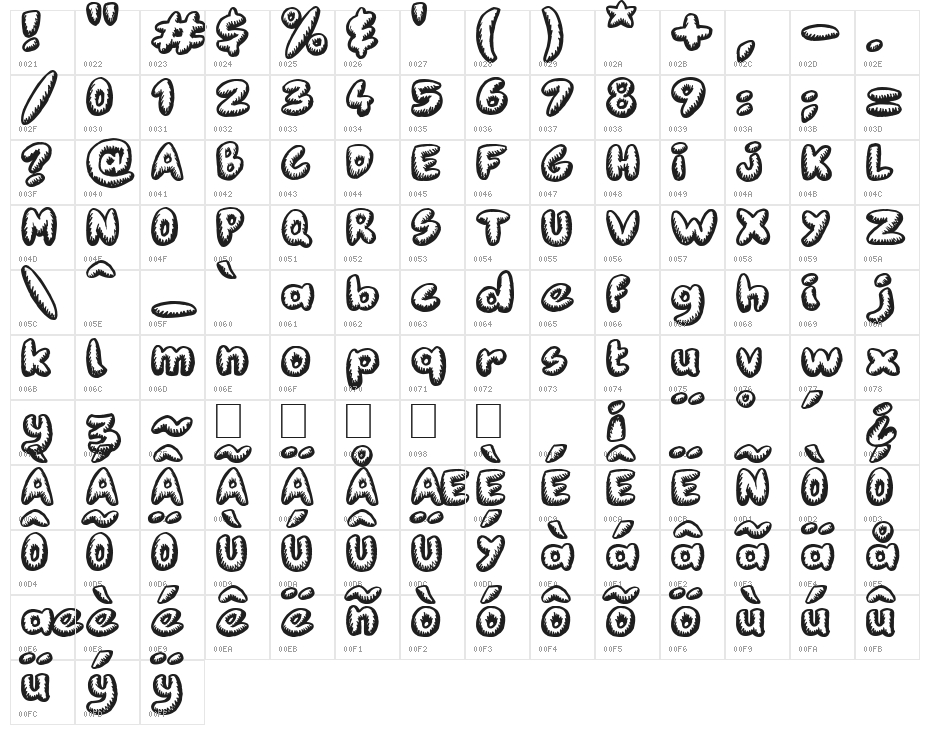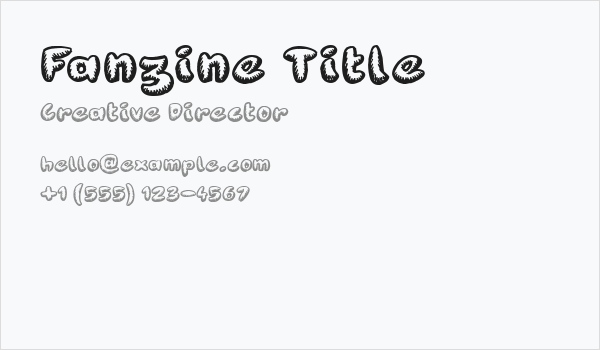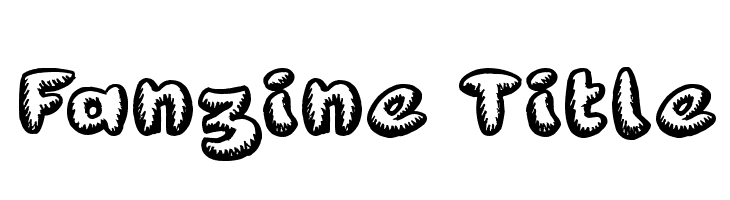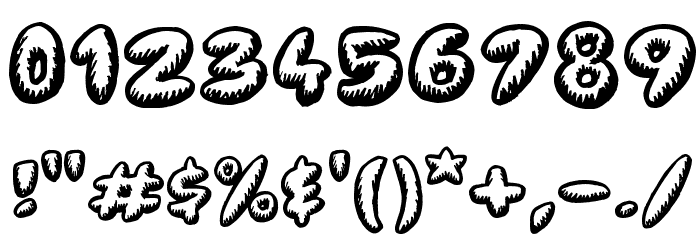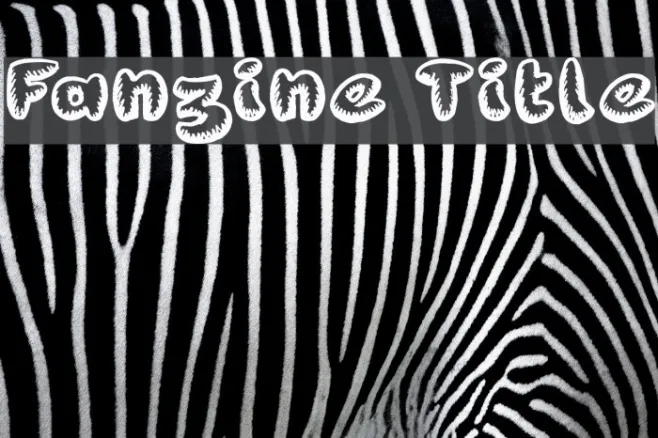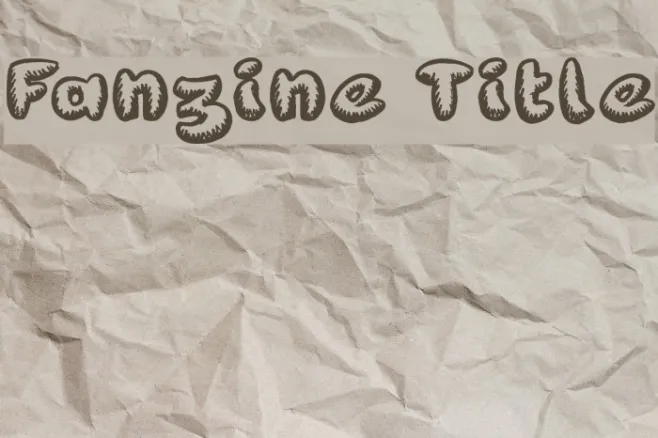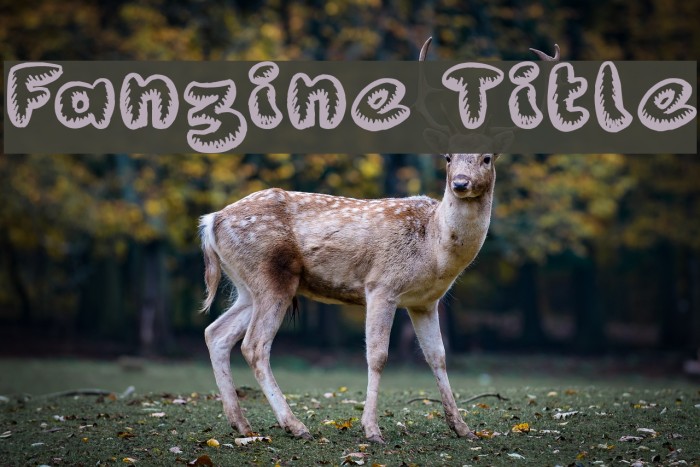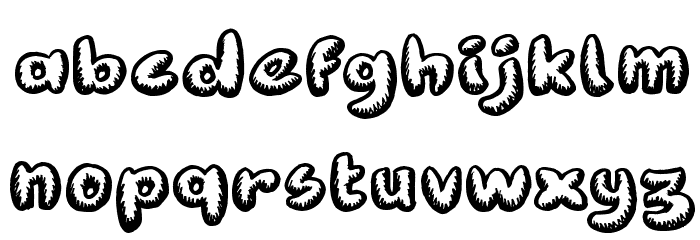
Fanzine Title Font
Fanzine Title Description
This font features a playful and bold design with a hand-drawn aesthetic. Each character is outlined with a thick, textured stroke that gives it a fuzzy, almost furry appearance. The letters are rounded and slightly irregular, adding to the whimsical and informal feel. The numbers and special characters maintain this consistent style, ensuring a cohesive look across all glyphs. This font is ideal for projects that require a fun and eye-catching typeface, such as children's books, comic titles, or playful branding.
| Overall Style | Playful, Whimsical, Hand-drawn |
| Proposed Projects | Children's books, comic titles, playful branding, posters, and creative invitations. |